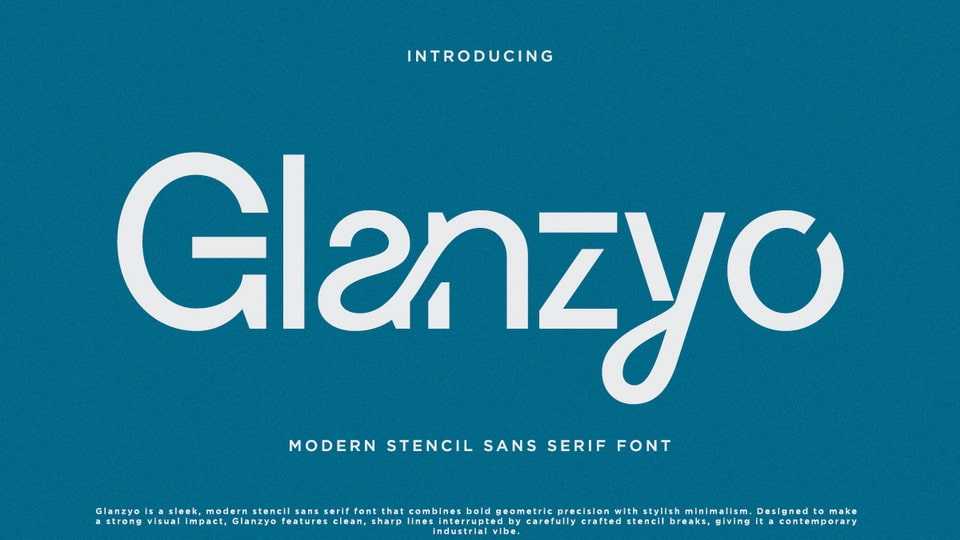
Download Glanzyo font, a striking geometric stencil typeface featuring clean lines, uniform stroke widths, and a refined tech-industrial aesthetic—perfect for designers who value clarity with a strong presence.